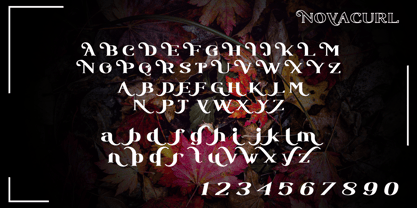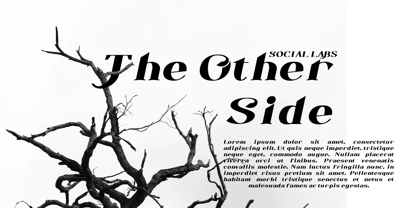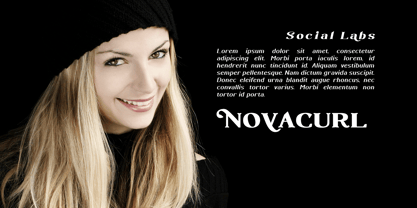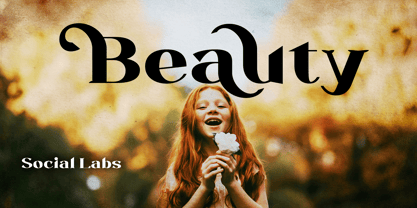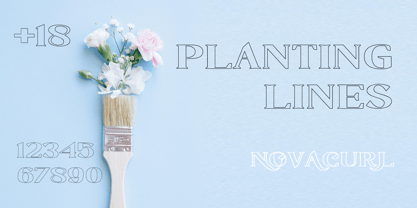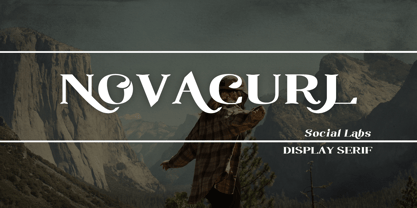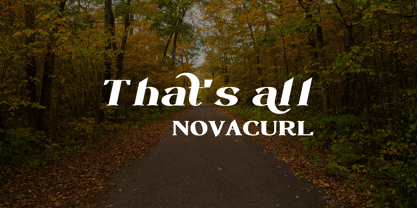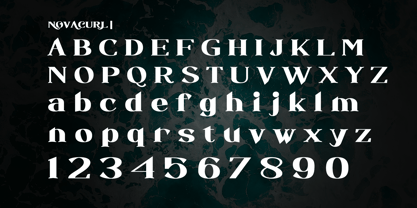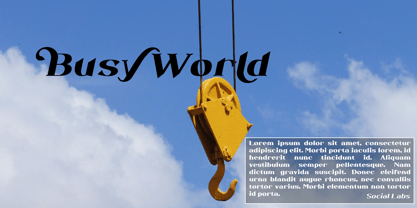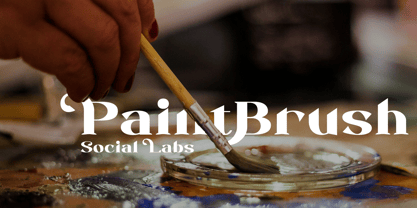
Novacurl
by Social Labs
The Novacurl Font Family was designed by Muhammad Naufal and published by Social Labs. Novacurl contains 3 styles and family package options. More about this family
Novacurl is a decorative serif display font that combines the strength of bold letterforms with graceful swirl curves, creating a unique, elegant, and characterful impression. The name Novacurl comes from two words: “Nova,” which means a new star or a burst of light in the sky, symbolizing innovation and eye-catching appeal; and “Curl,” which refers to the distinctive curved ornament at the end of the letters. This philosophy represents the design principle of Novacurl: to present a typeface that is not only sturdy and legible, but also shines with captivating decorative beauty. Created specifically as a display font, Novacurl is ideal for titles, logos, posters, or graphic works that want to stand out, presenting a blend of modern energy and timeless classic touches.
Designers: Muhammad Naufal
Foundry: Social Labs